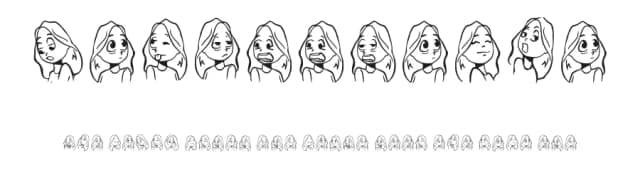
About Expressions Font
Expressions is a dingbat font designed by Amol Koli. It includes 32 glyphs, a regular weight, and TTF (TrueType) format. Expressions is free to download; check the license details on this page before commercial use. Dingbat fonts like Expressions work best for icons, ornaments, bullet points, and decorative accents.
Expressions Font is a versatile dingbats font that works for both headings and body text. Pair it with a contrasting sans-serif or serif font to add visual interest and a clear distinction between titles and body copy.
Expressions Font
by Amol Koli
Expressions Font is a dingbats typeface by Amol Koli, ideal for logos, invitations, branding, and creative projects.